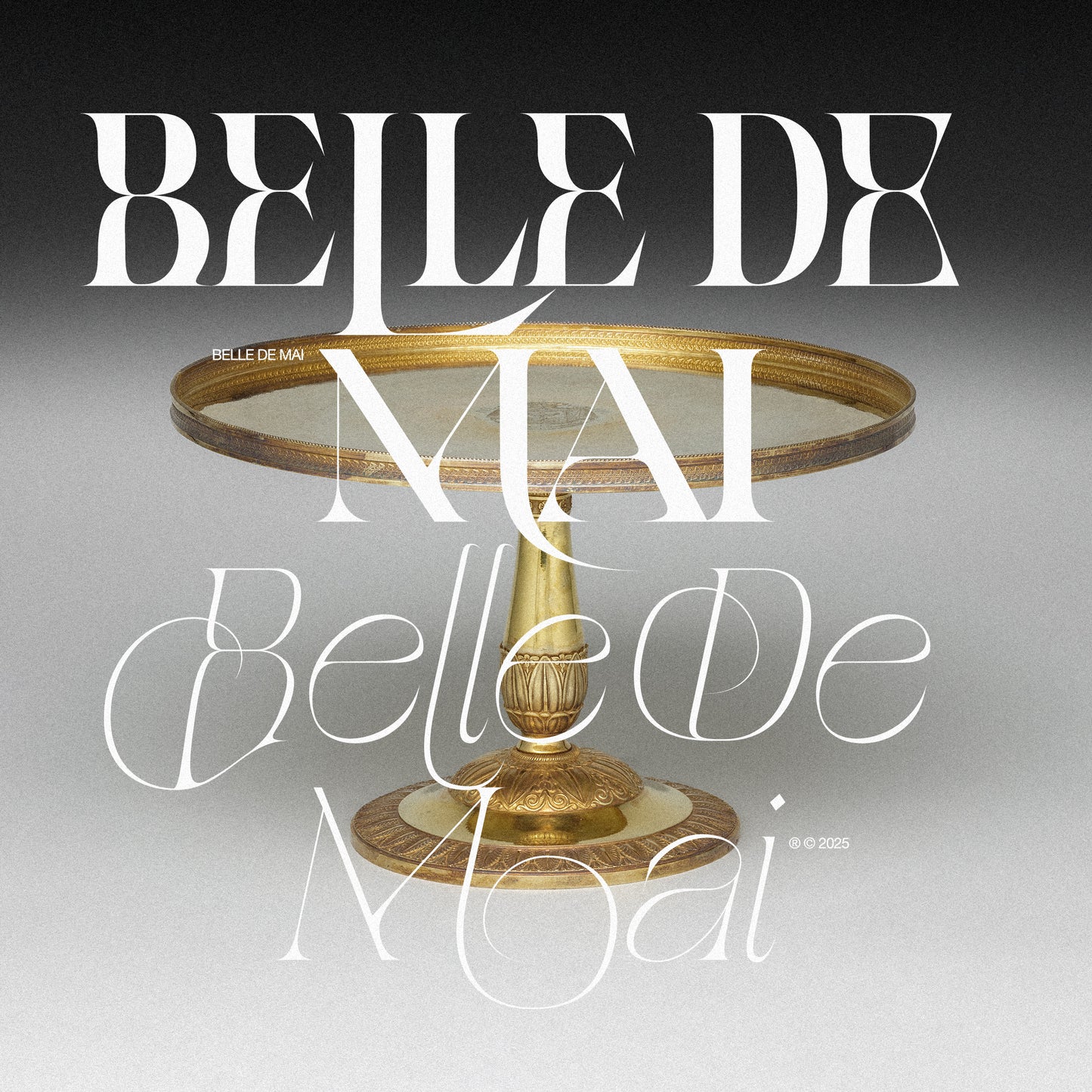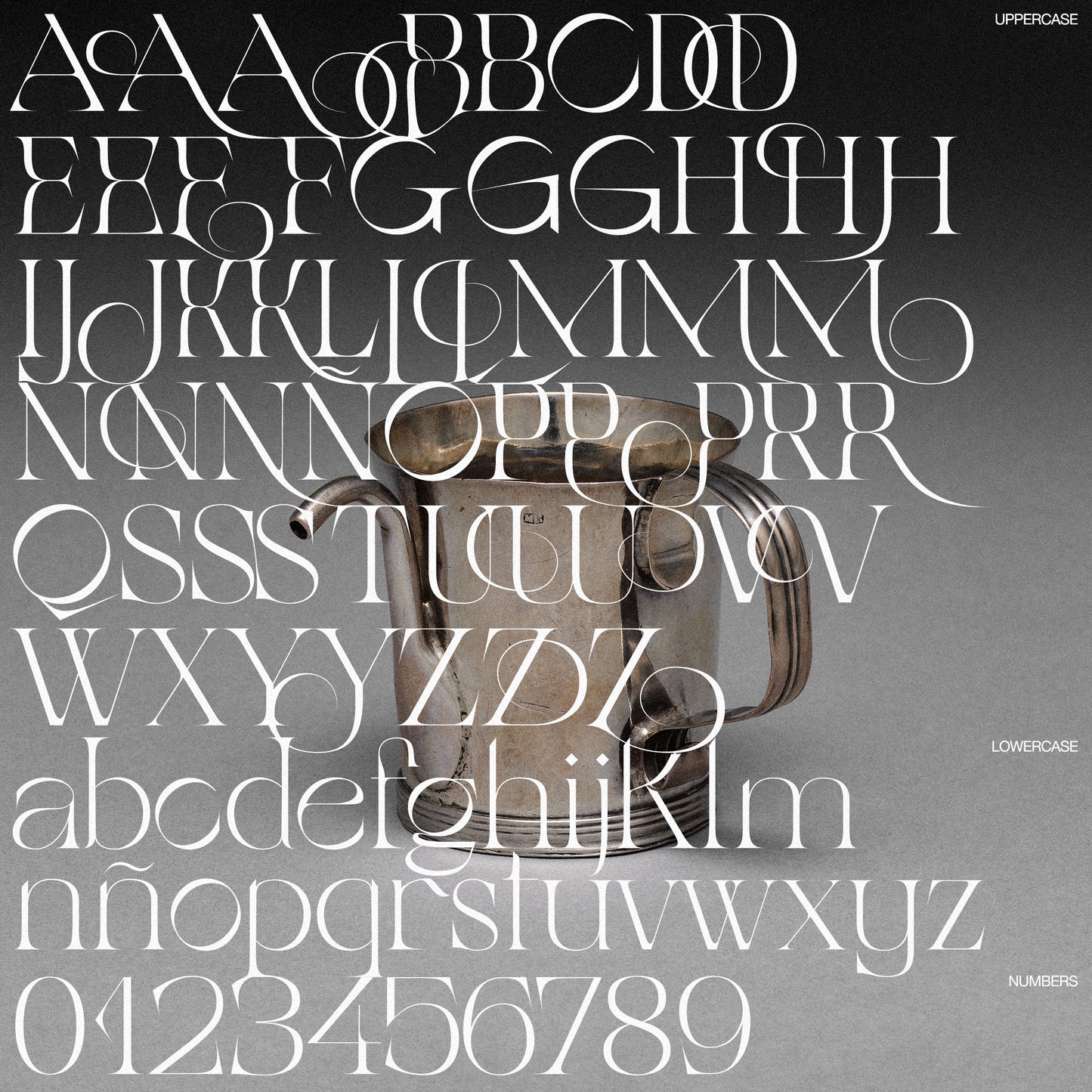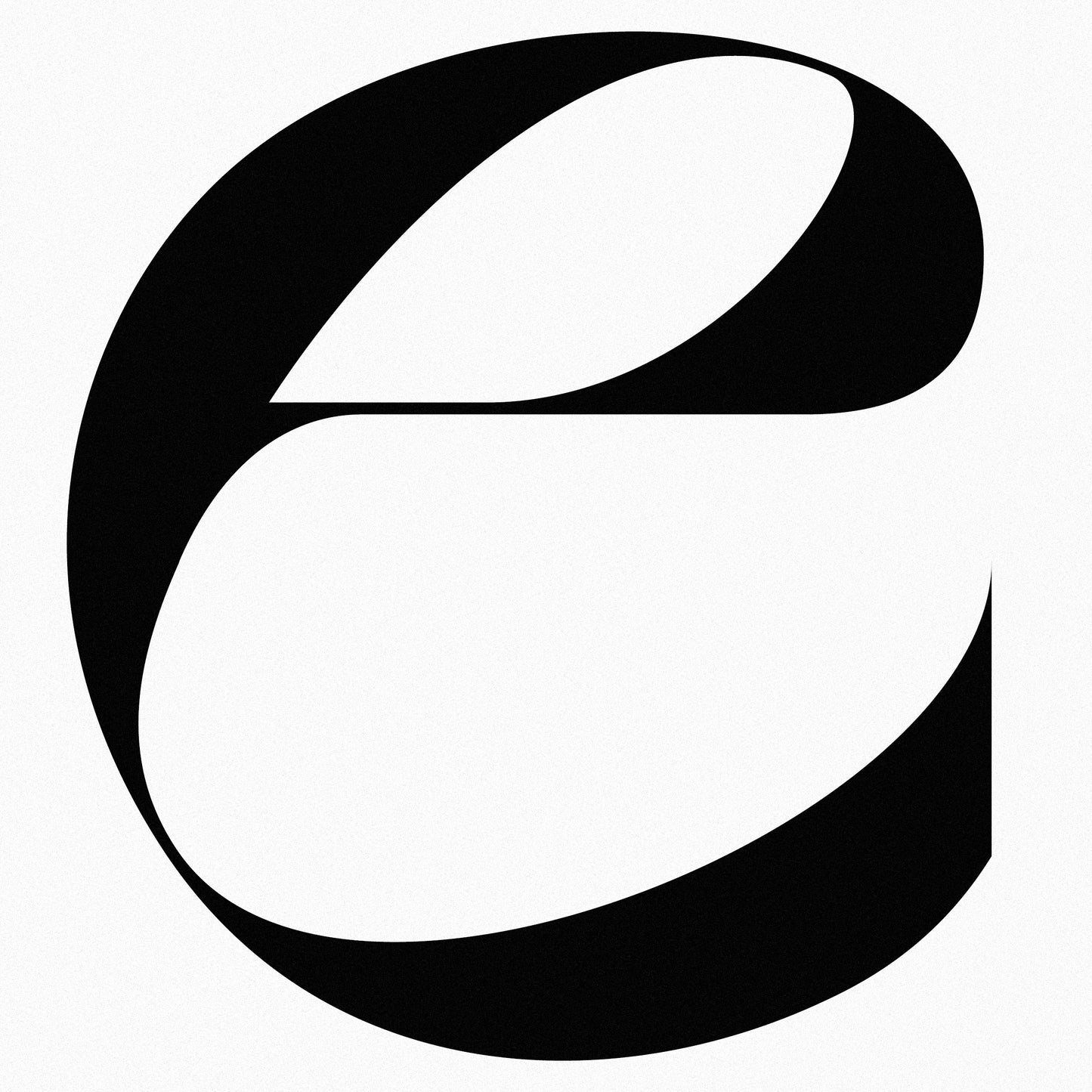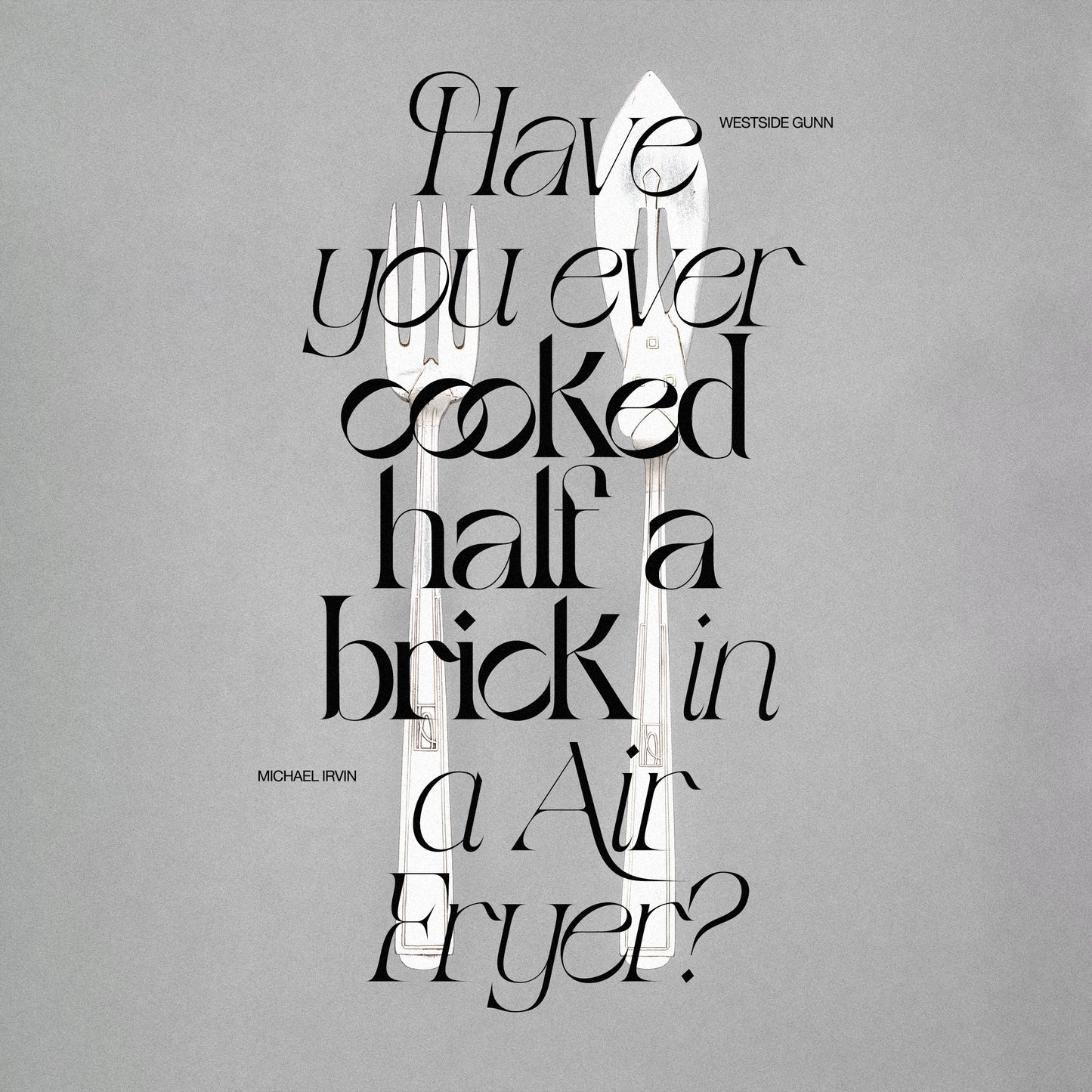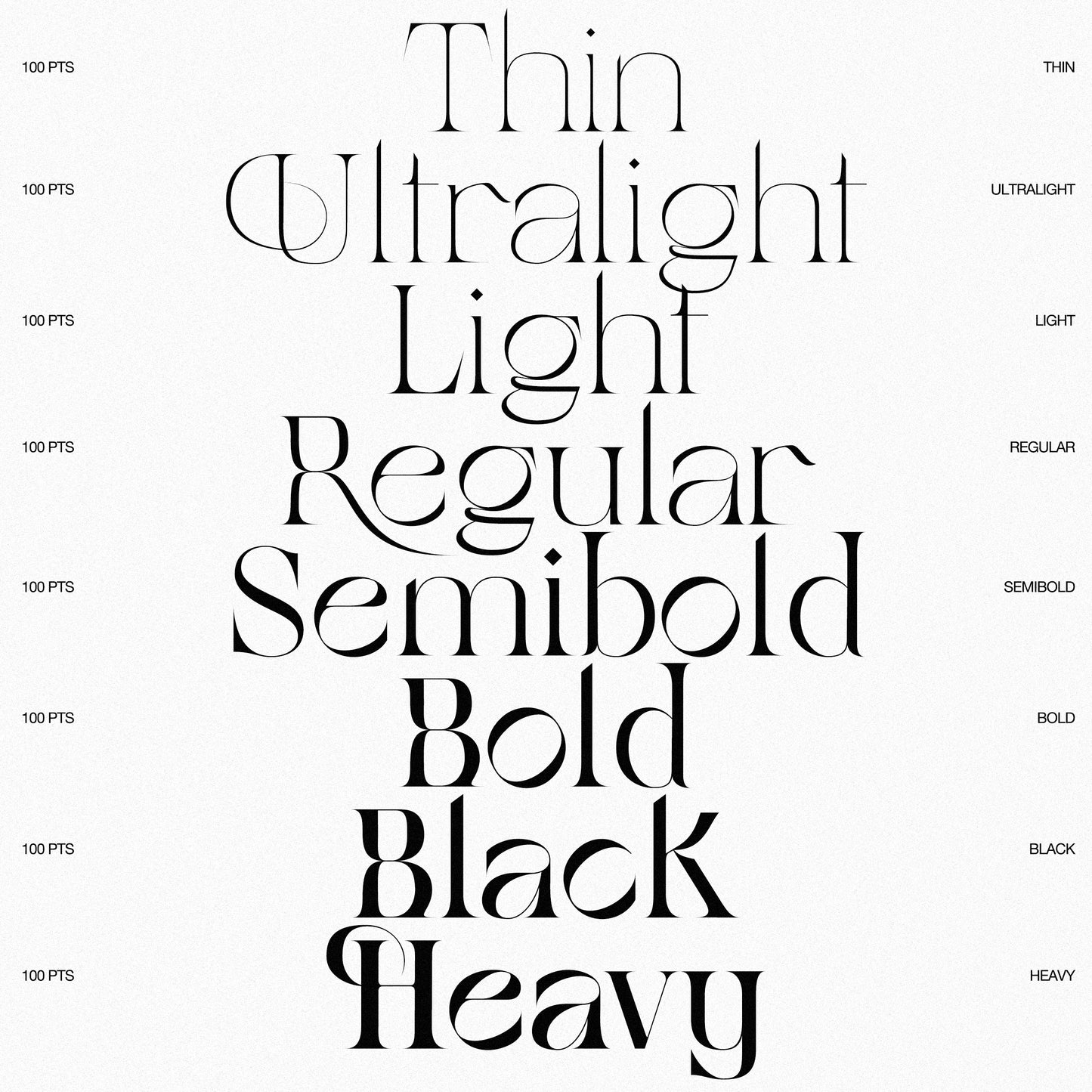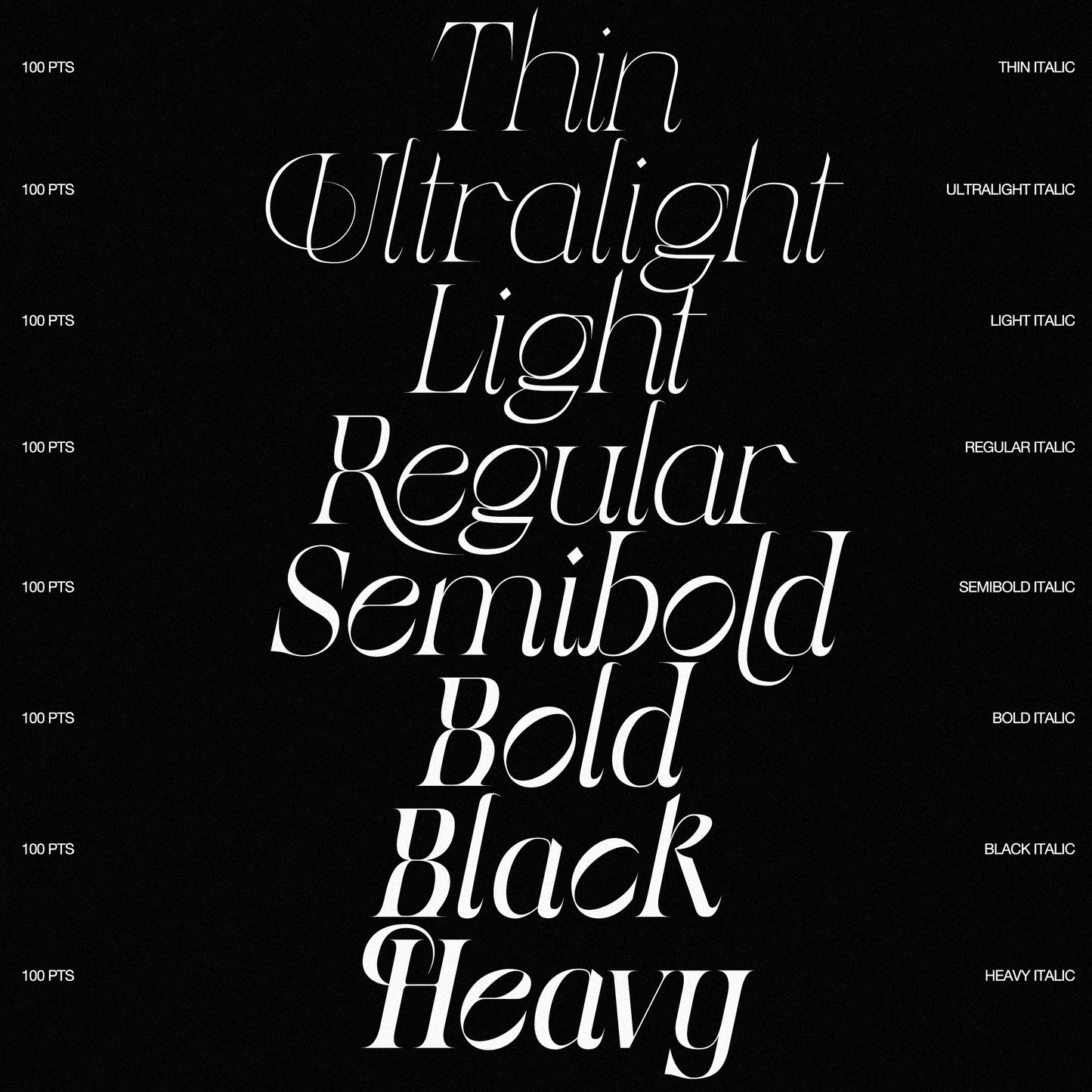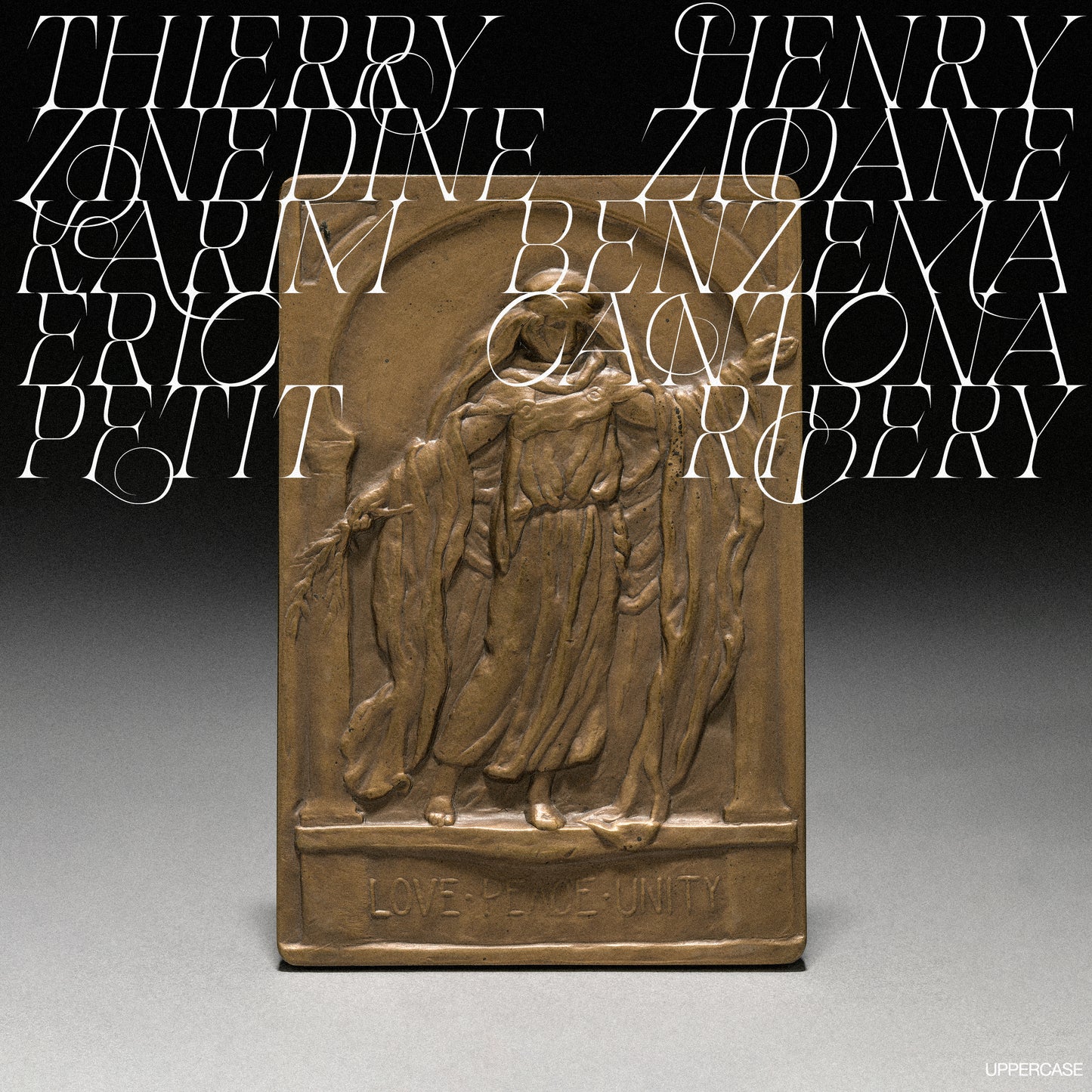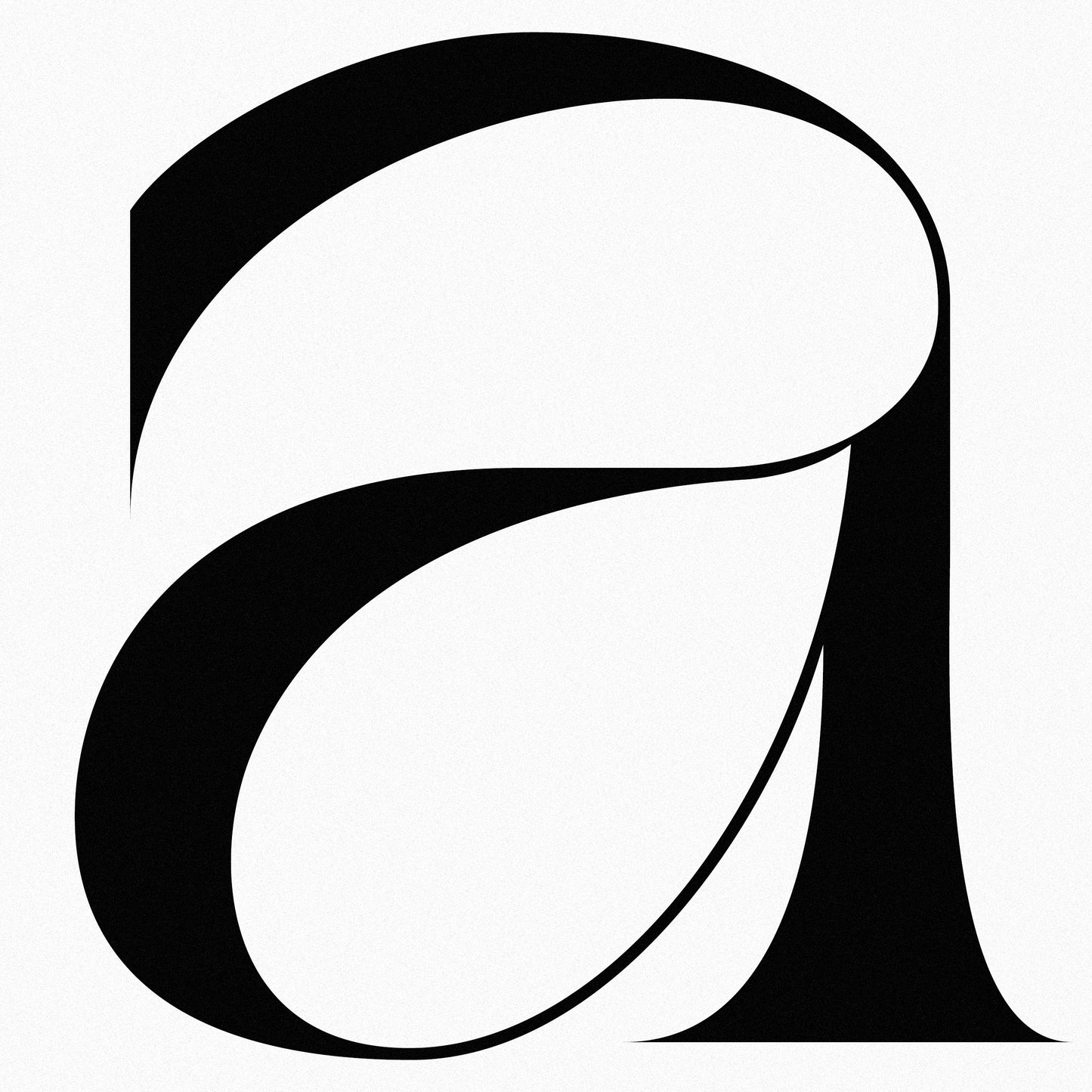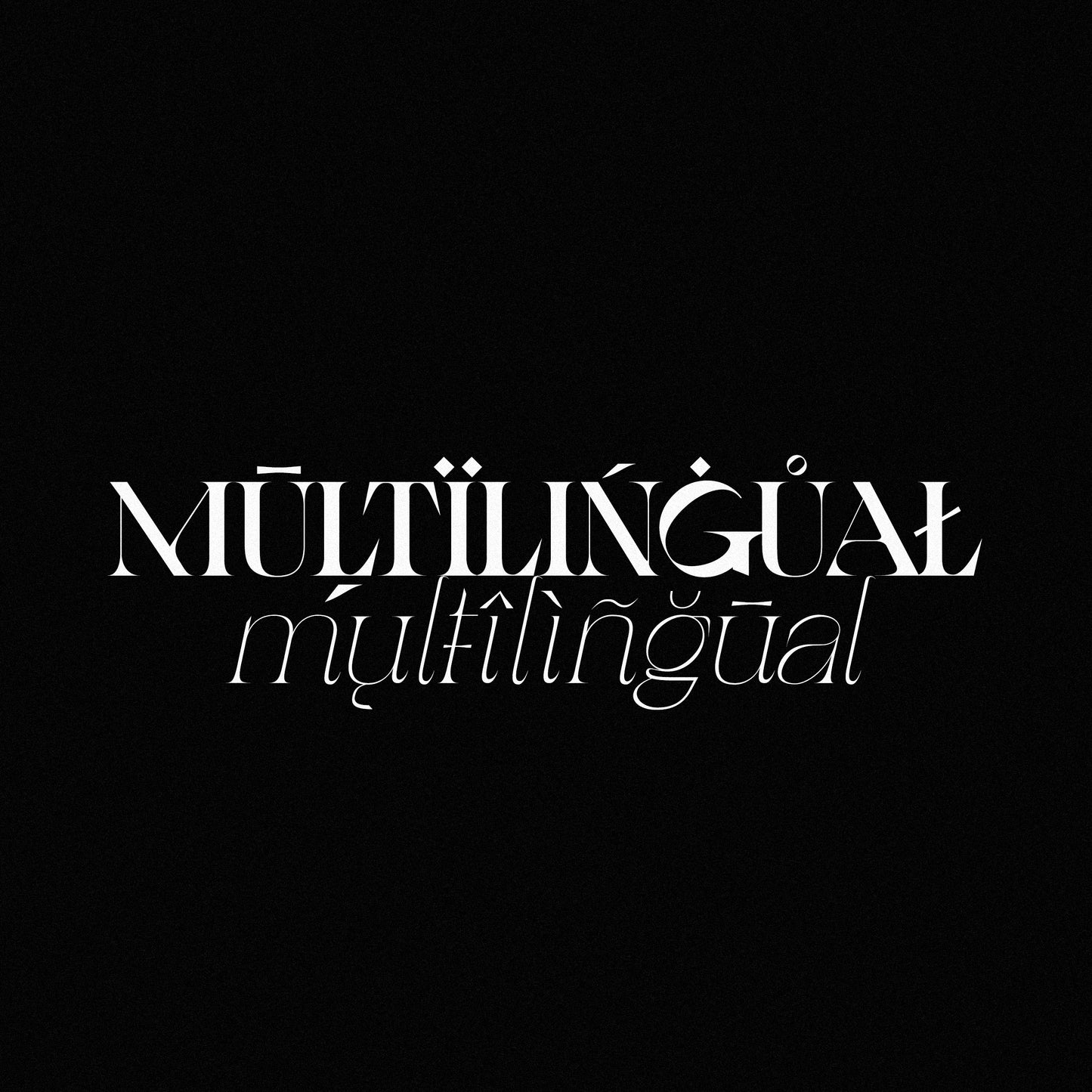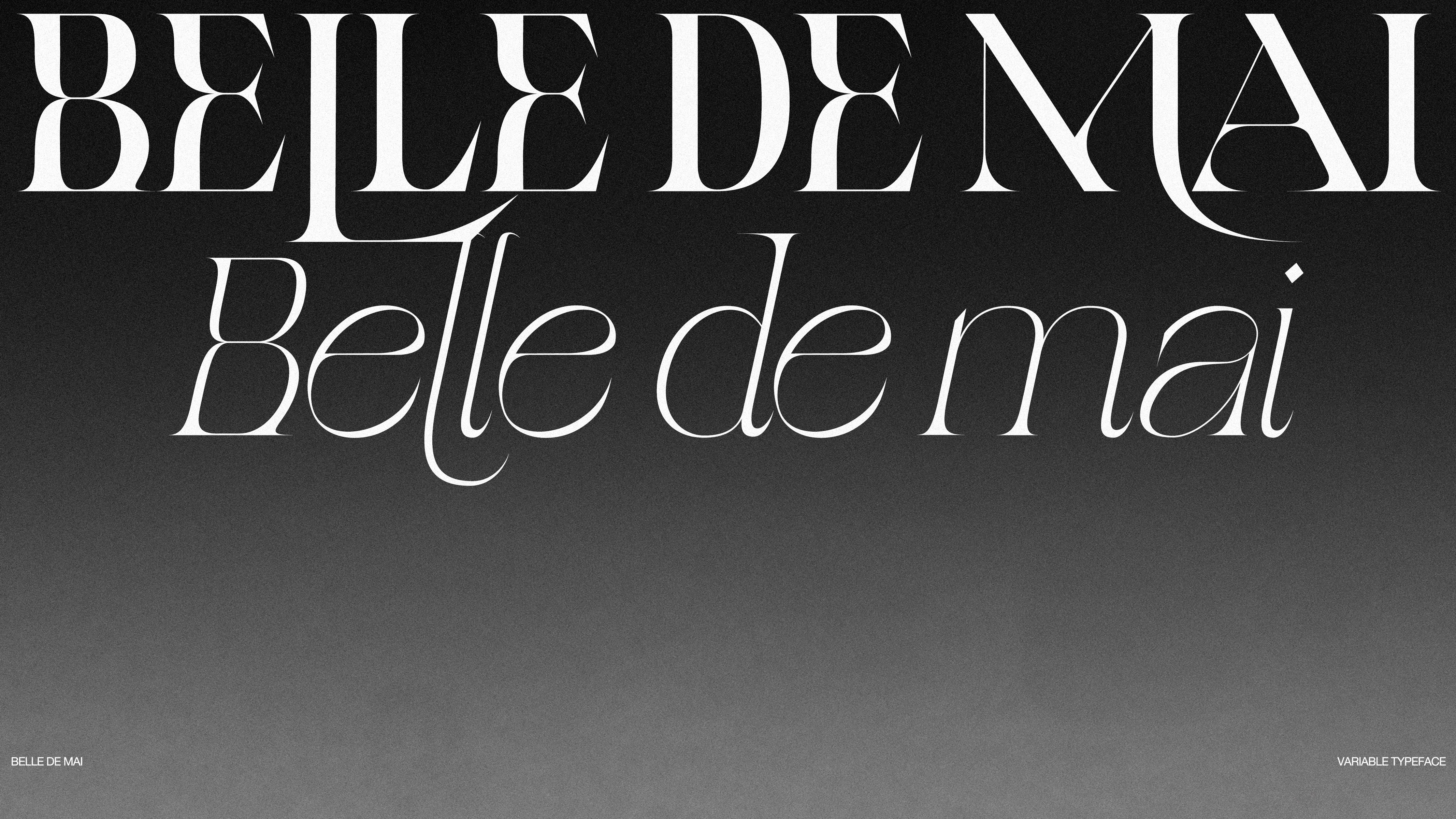
Belle de Mai
Belle de Mai is a variable display typeface inspired by the cultural shock between high cost, inner-city zones and lower cost suburbs in big metropolitans cities such as Paris.
The typeface takes its name from the hood of La Belle de Mai and merges classical elements with an unusual, vibrant edge. The lighter weights feel more dainty and delicate have a tight, expressive tension whilst the heavier weights show its softer side. Belle de Mai would look stunning in editorial layouts, impactful branding and more.
— 8 weights + Italics
— Open Type Features: Lowercase and uppercase, ligatures for both, numbers, symbols and diacritics